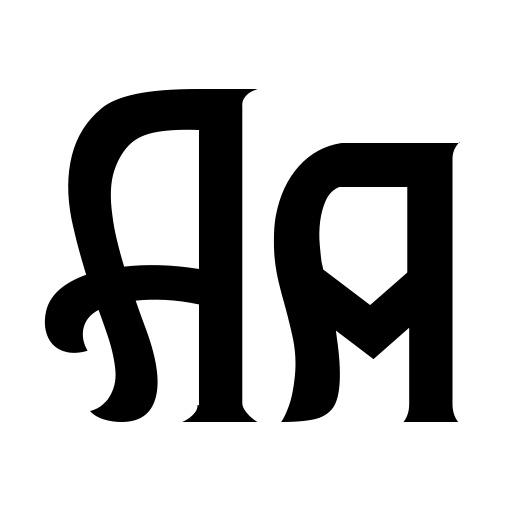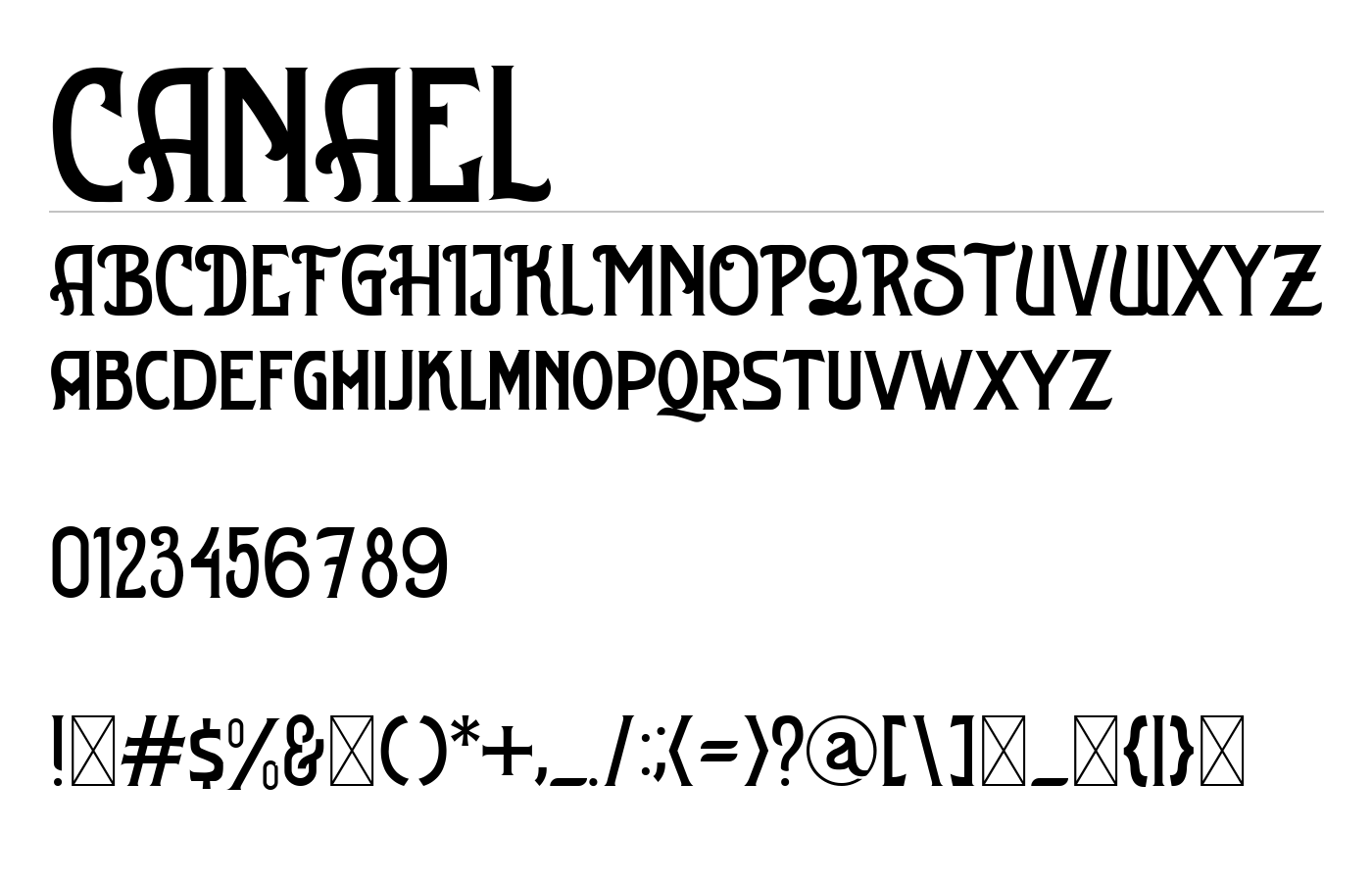
CANAEL is a distinctive serif font with a vintage, slightly gothic flair, characterized by bold strokes and sharp, bracketed serifs that give it a strong, dramatic presence. Its upright letterforms feature unique, ornamental details like curled terminals and stylized capitals, making it ideal for attention-grabbing headlines, logos, and branding that aim to evoke a classic yet edgy mood. This font works well in designs requiring a blend of elegance and bold personality, such as posters, fashion labels, and editorial titles.
CANAEL Font
About CANAEL Font